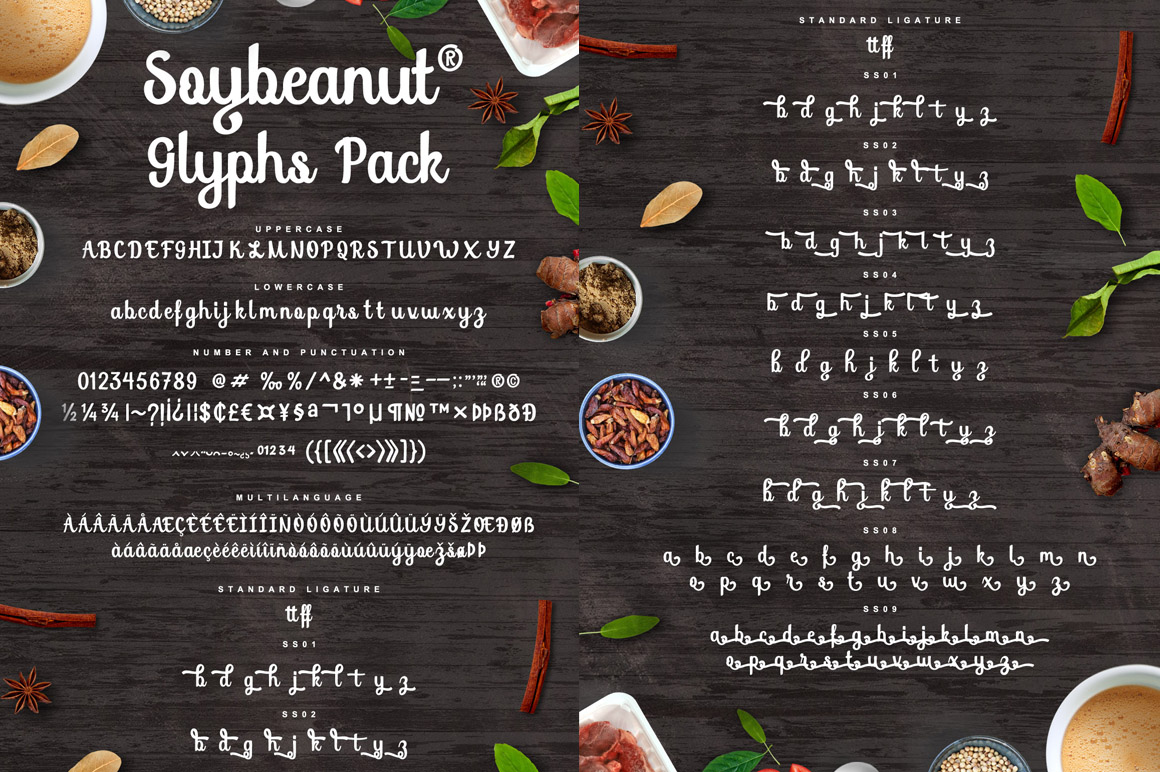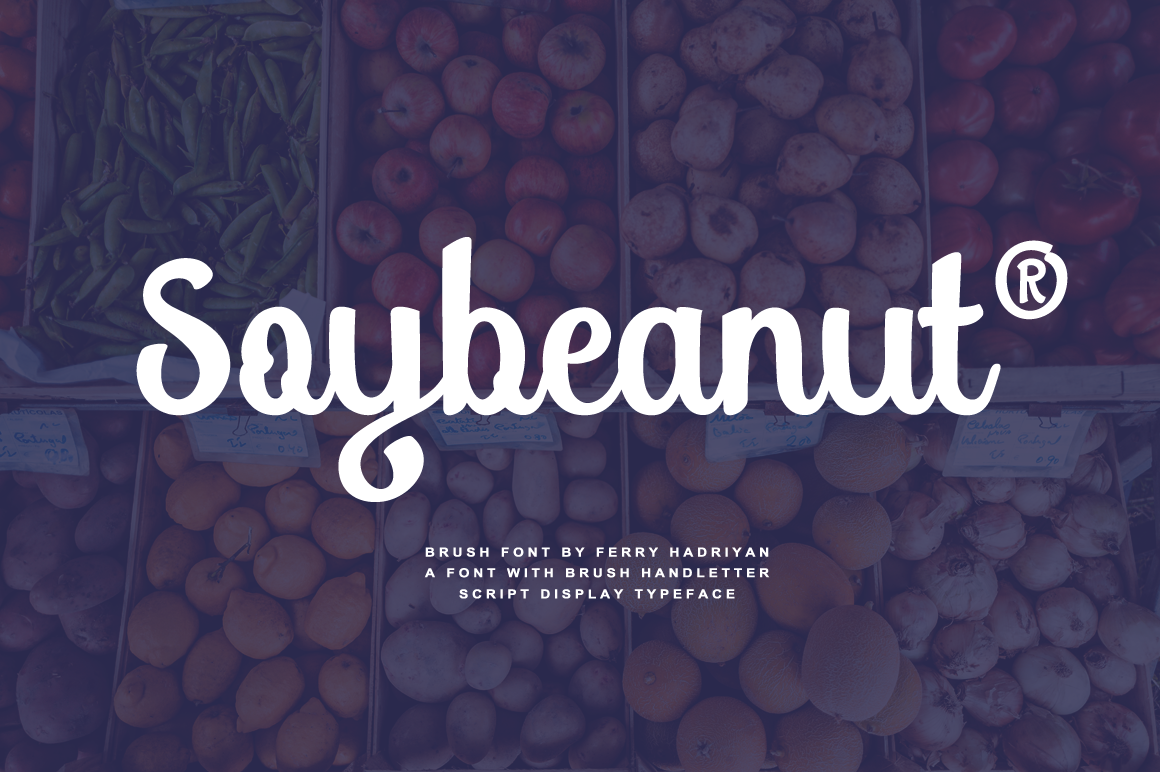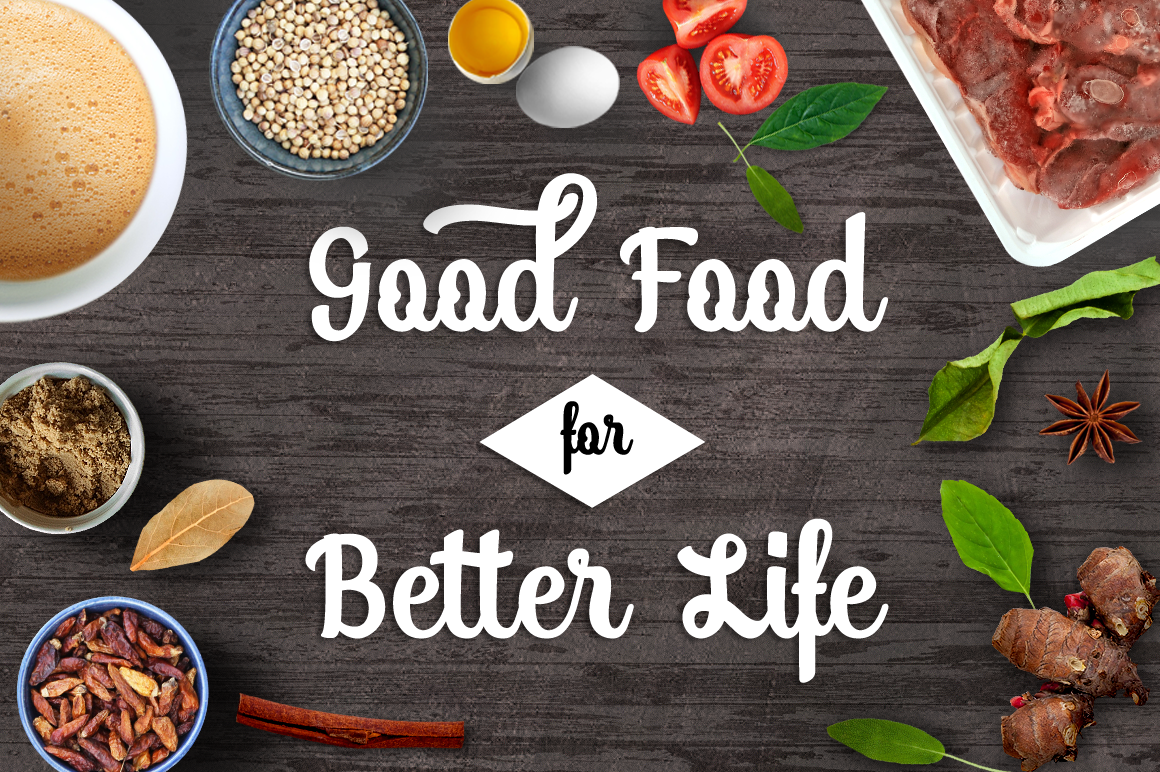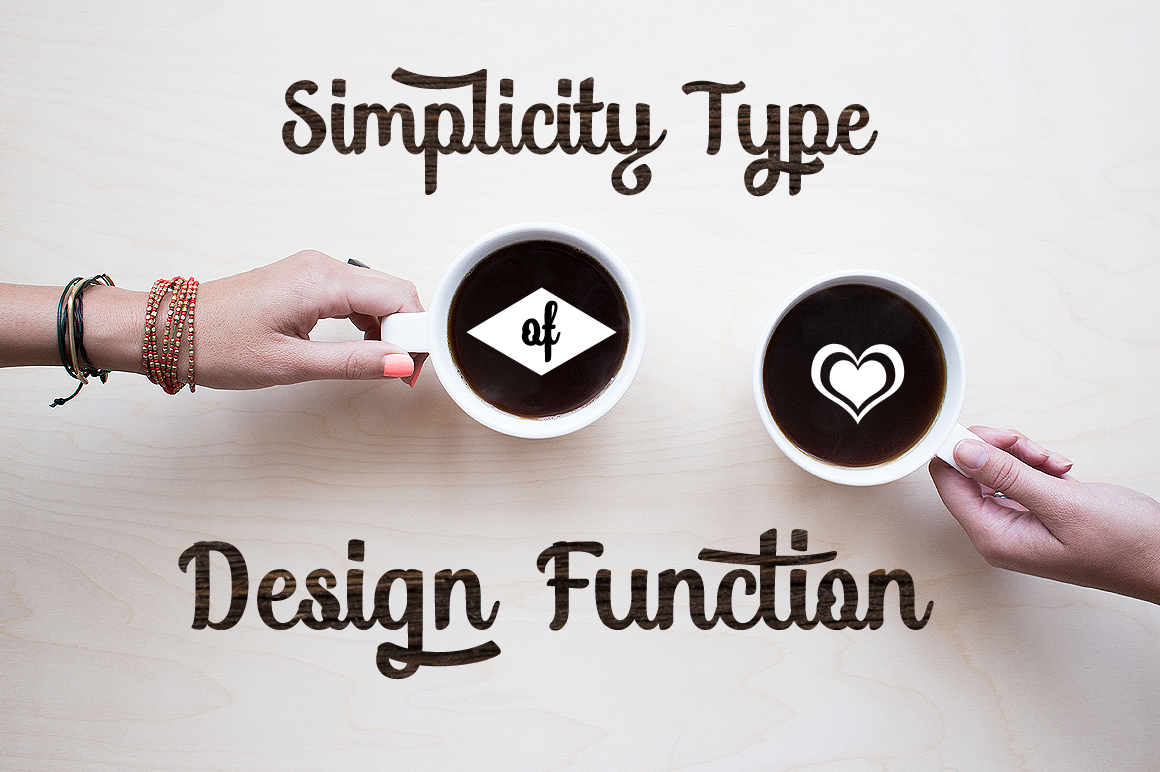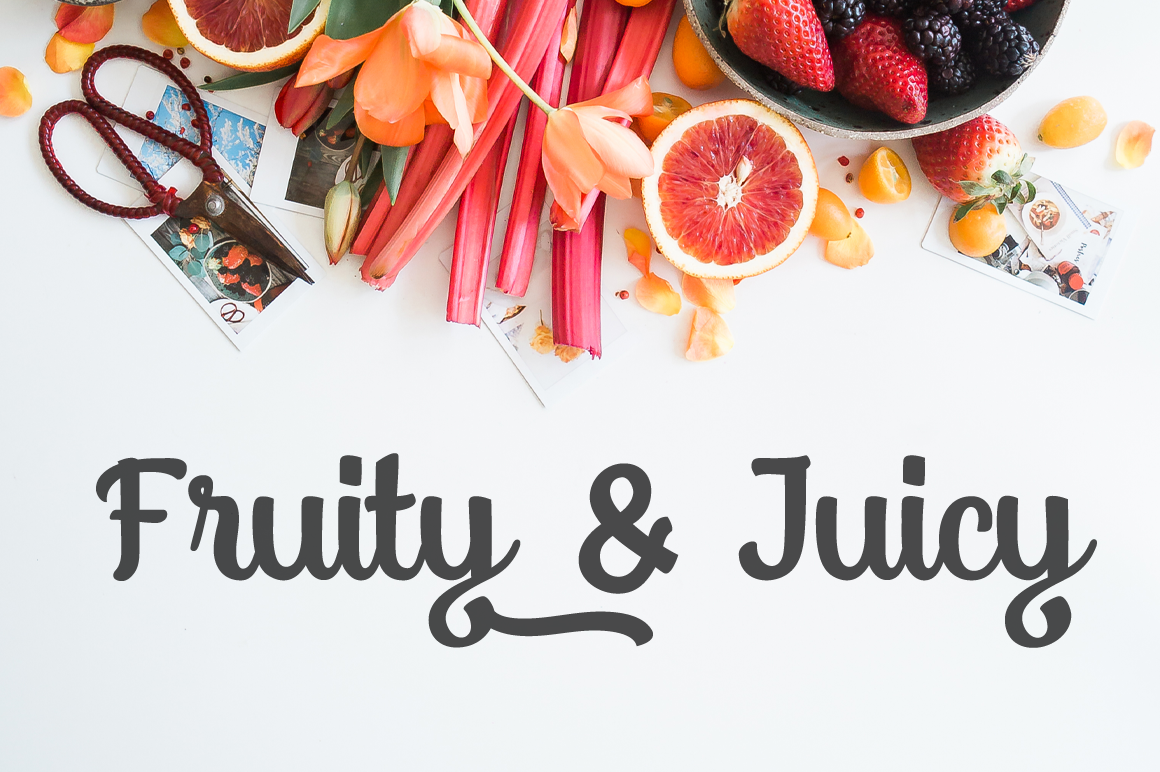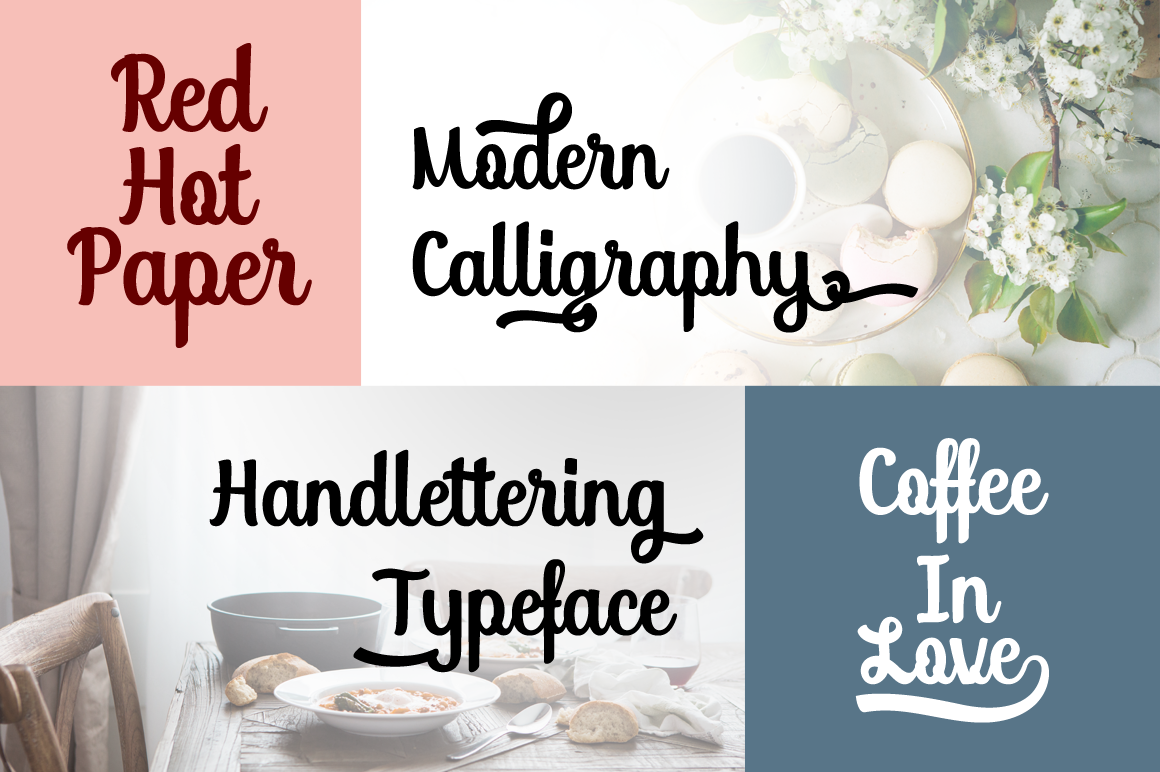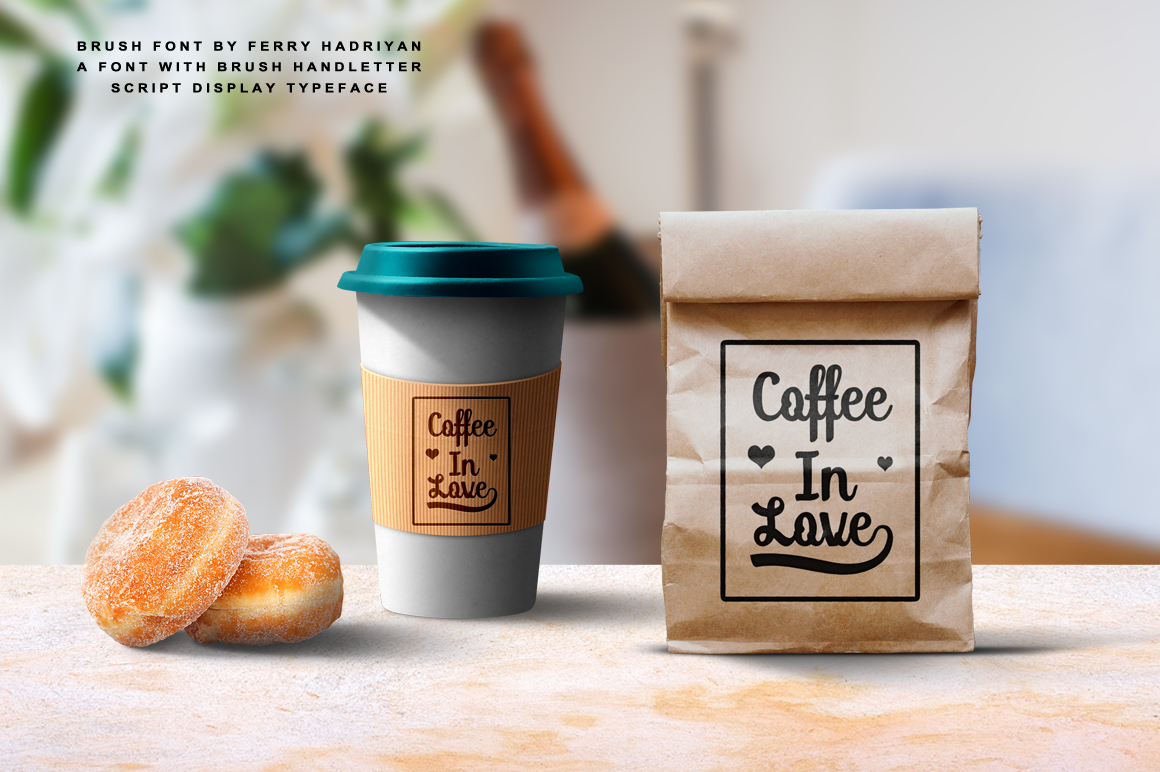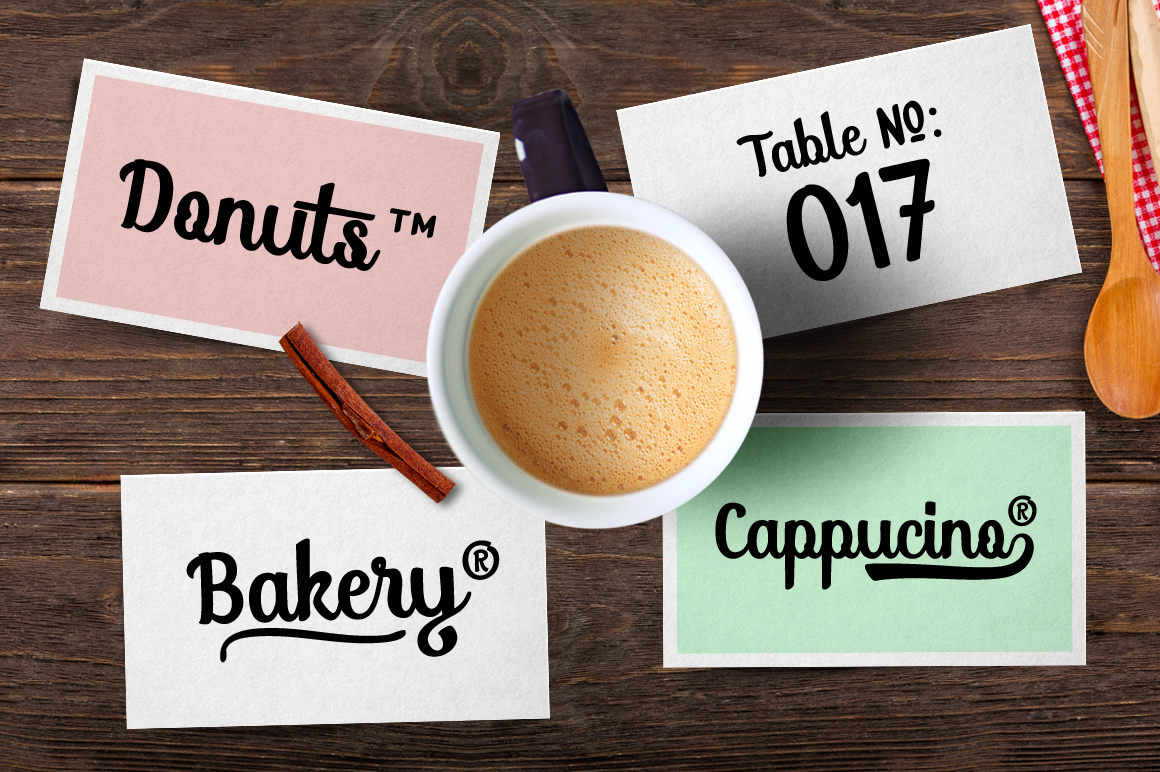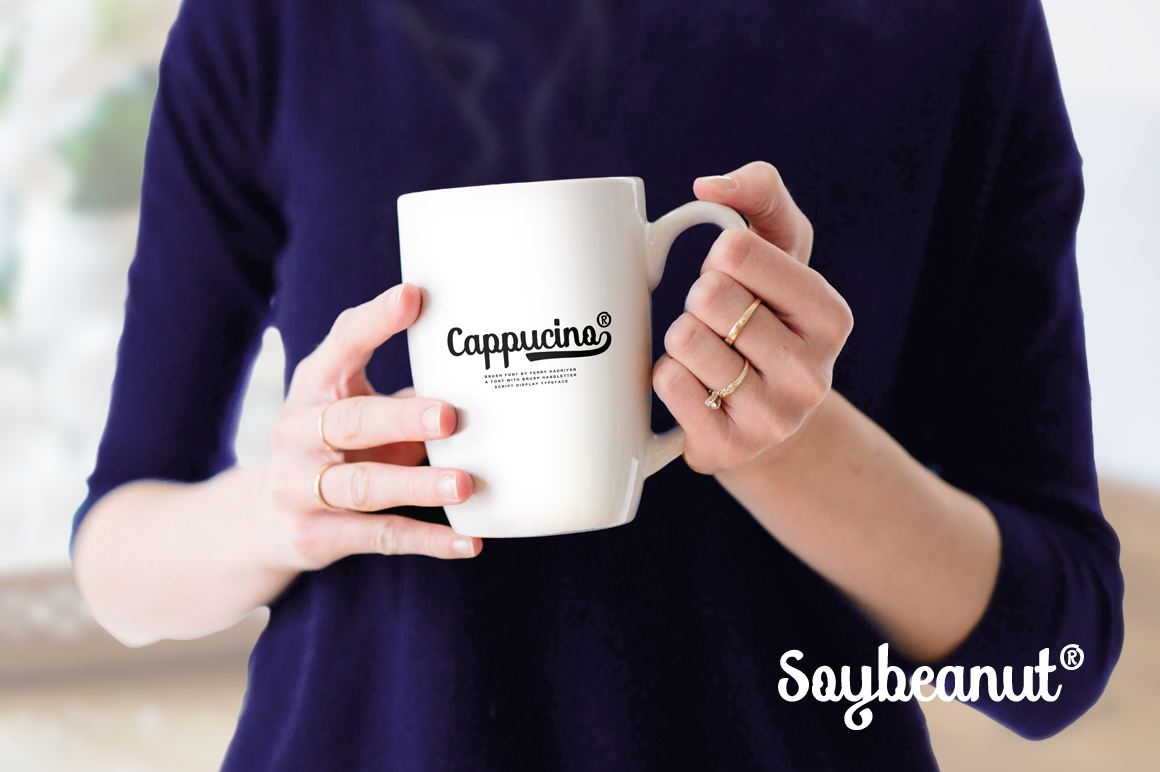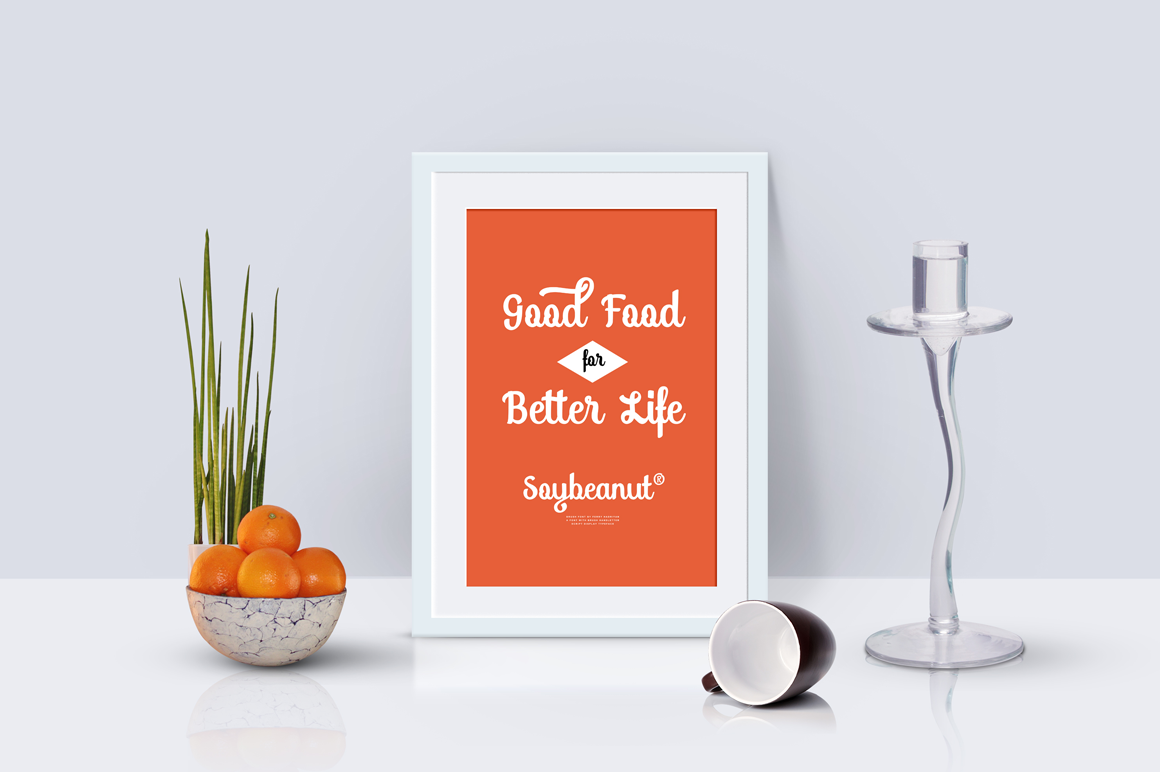
Soybeanut – Script Font
Soybeanut is a brush script font with an authentic style. Suitable for design, element design, weddings, events, t-shirts, logos, badges, stickers, and awesome work, etc…
– Combination of stylistic alternate fonts
– Standard Ligatures, Stylistic Set, Multilanguage Characters, etc
– Modern Brush Script
– Unique style fonts